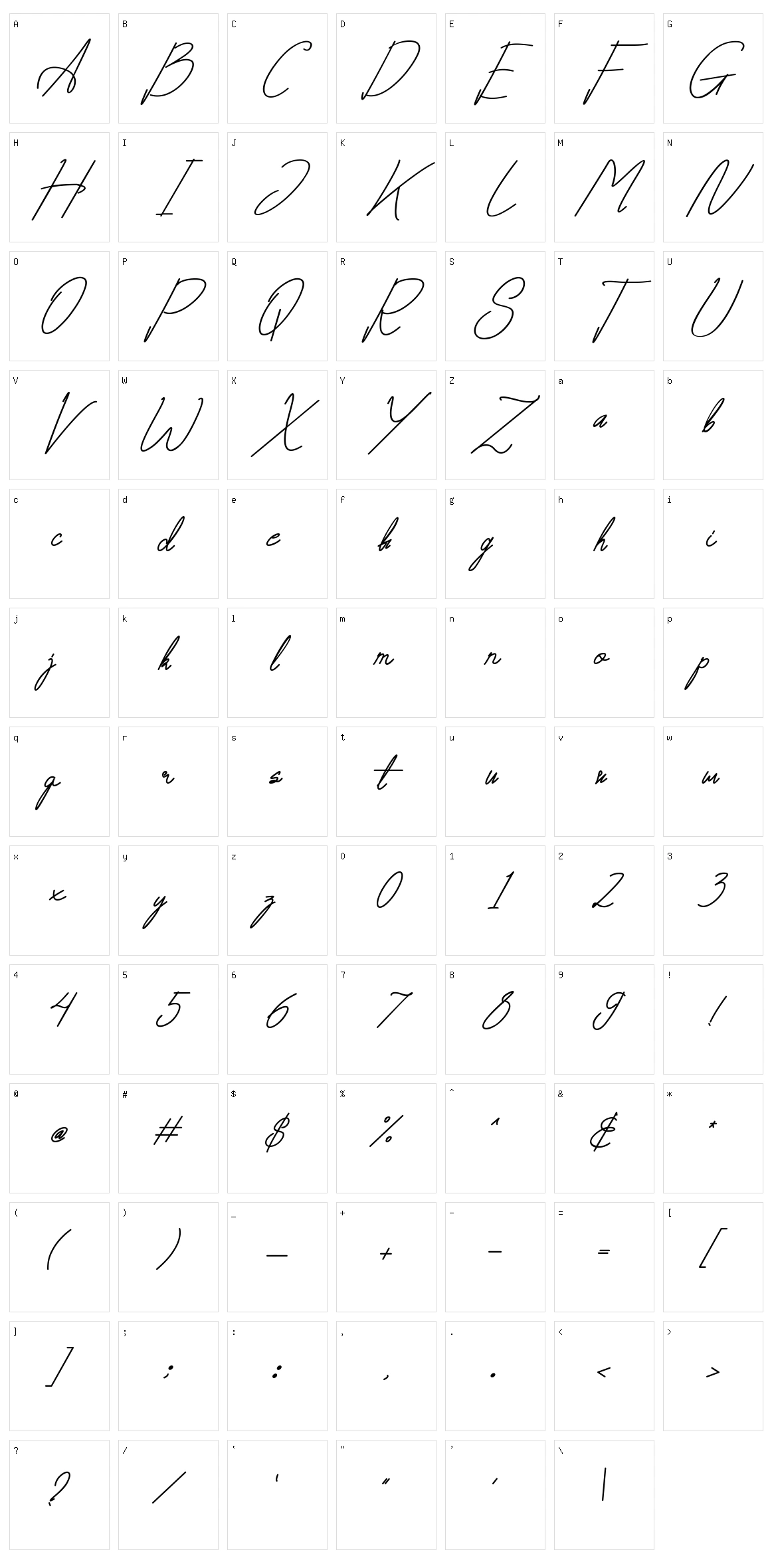
The free font Mahadetty is carefully designed by Jadatype, showcasing a thoughtful balance of creativity and usability and falls under the Script font style. When you download the ZIP file, it contains only 20.88 KB of font files, making it lightweight and quick to download. Please review the license details below to understand permitted usage and distribution rights. If license information is not available, we recommend using this font for personal projects only or contacting the author directly for commercial usage permissions.